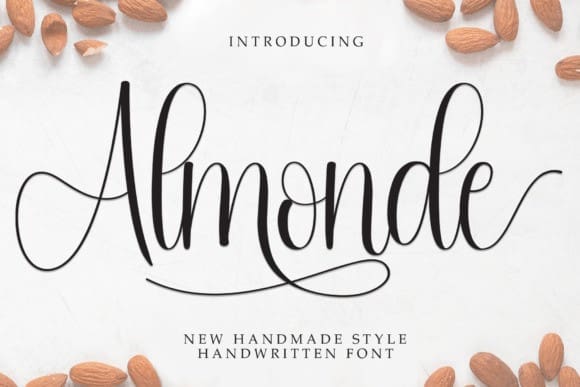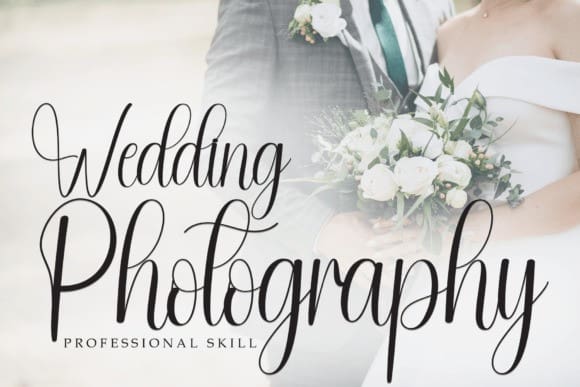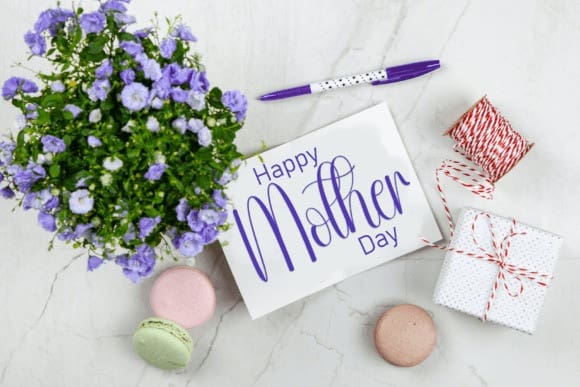
Almonde Script Font
Almonde Script Font: A graceful and versatile script typeface that embodies elegance and sophistication. With its delicate and flowing letterforms, Almonde Font adds a touch of refined beauty to your designs. Ideal for wedding invitations, branding, and feminine-themed projects, this font exudes a timeless charm with a hint of modernity.